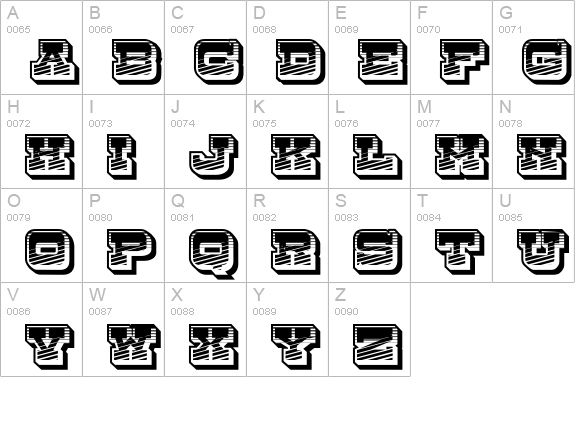
Dry Goods Rustic JL font combines the charm of rustic handcrafted aesthetics with a touch of old-world elegance. Its uniquely textured and weathered appearance adds a vintage flair to any design project. This versatile font is perfect for creating eye-catching signage, branding materials, and social media graphics that exude a warm and inviting feel. What makes Dry Goods Rustic JL font even more appealing is that it is available for free download at FontsMarket.com. This means you can easily incorporate this stunning typeface into your projects without any cost. Embrace the timeless appeal of Dry Goods Rustic JL font and add a touch of rustic charm to your designs today.